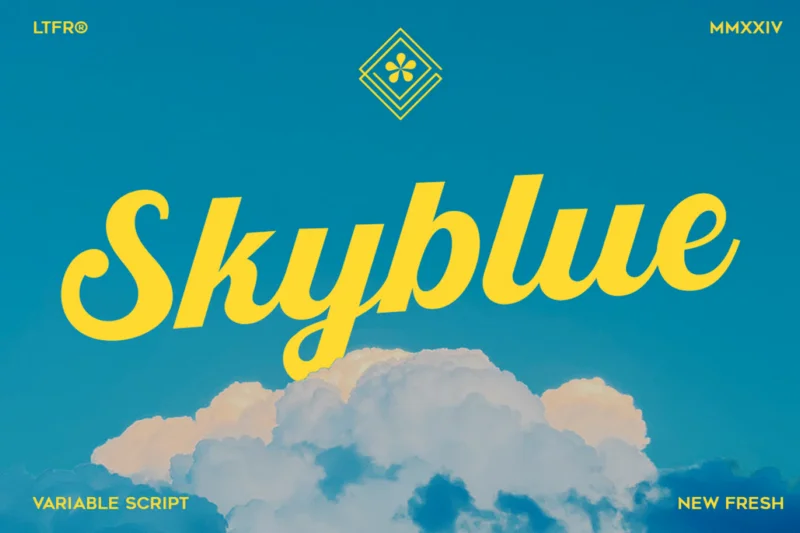
Skyblue Script – Font Family
Introducing Skyblue Script Script Variable Pro, a new curve that carefully creates and balances script typography with personality. The flowing characters are ideal for creating compelling messages. Mix and match Skyblue Script Variable Pro with various weights to suit your project.